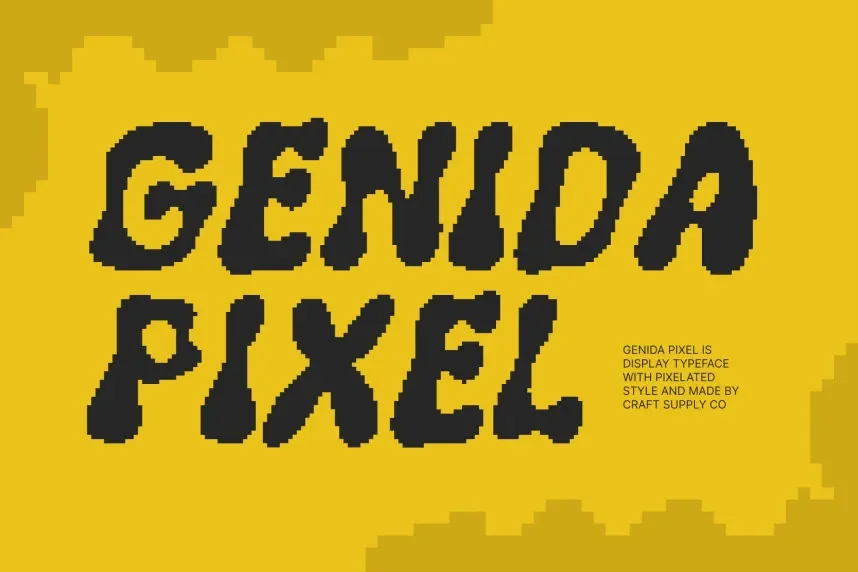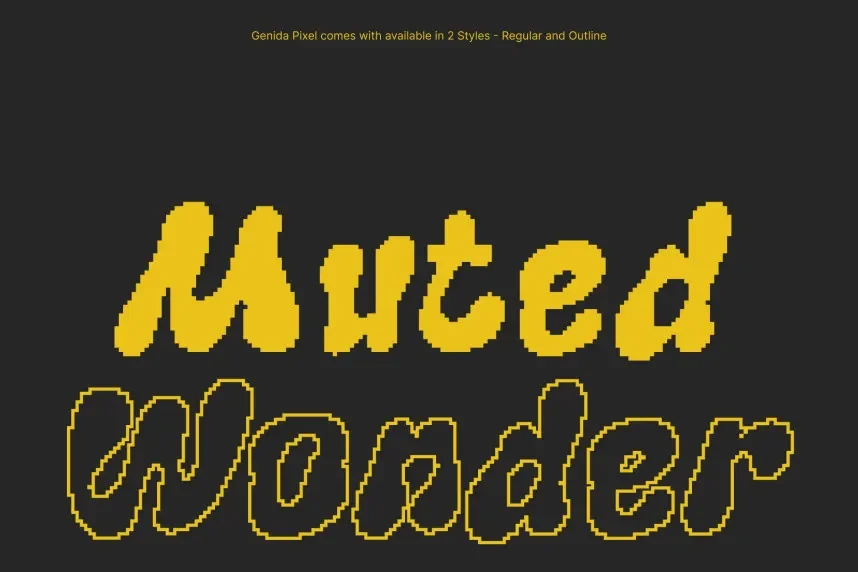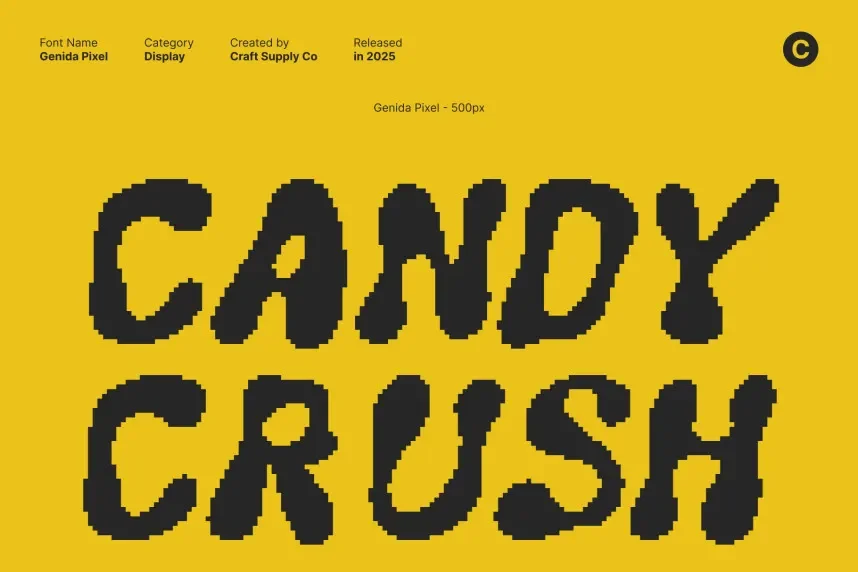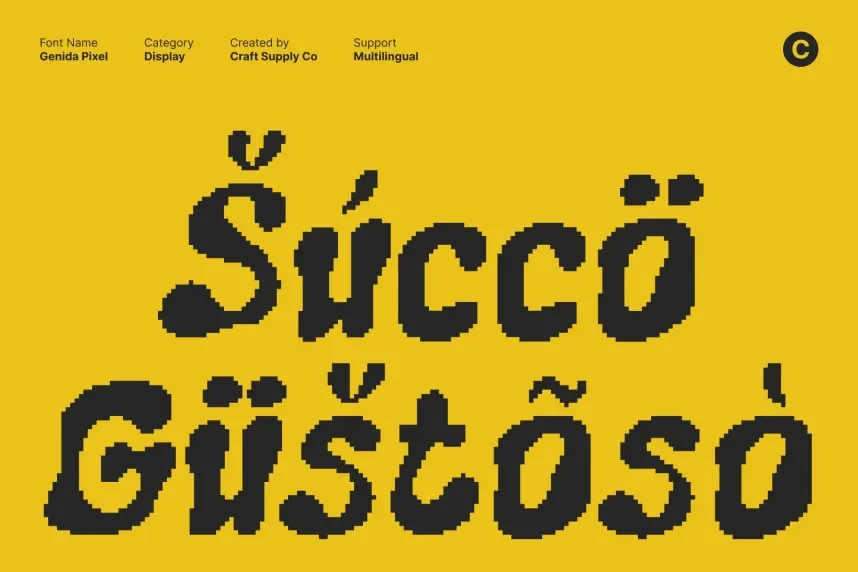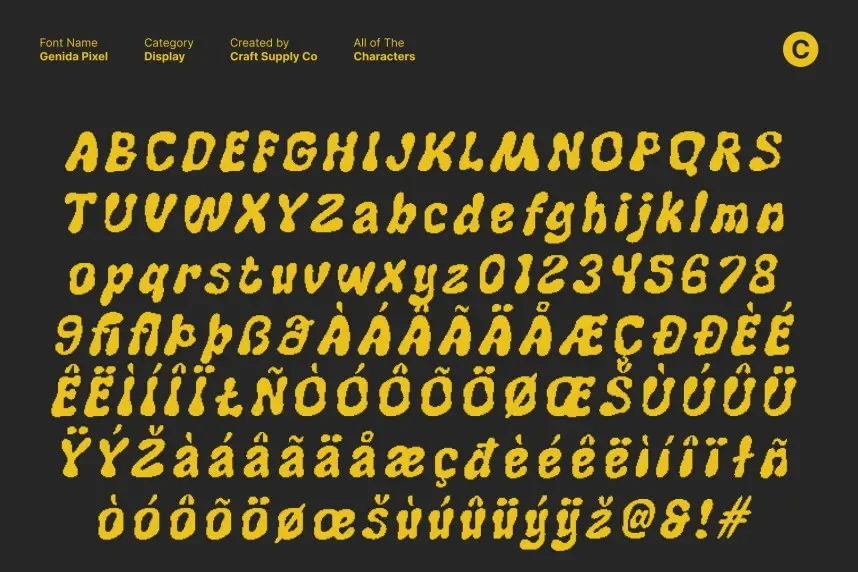
Genida Pixel Font offers a bold, high-contrast pixelated design perfect for digital applications. With its sharp edges and readable structure, it’s ideal for projects related to video games, apps, and websites that need a strong visual identity.